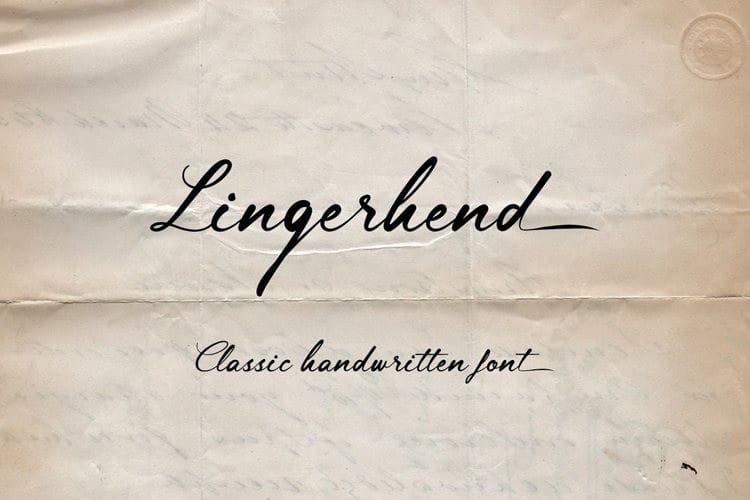
Lingerhend Handwritten Font
Lingerhend Handwritten Font is a really modern font with combined stylish letter shapes with a charm contemporary twist. Made from font designer named lemonthe. This typeface is a classic handwritten script font. It’s the perfect font for wedding invitations, stationery, photography, social media posts, product packaging, greeting cards, and much more!